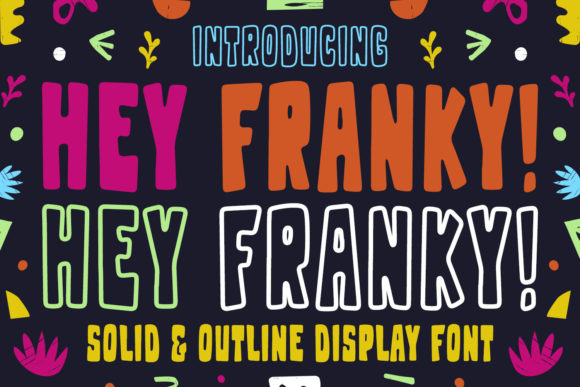
Introducing Hey Franky Font, a striking display font that adds a touch of boldness and playfulness to any creative pursuit. Designed by Kotak Kuning Studio, this font family is a visual delight, perfect for gamers seeking a font that's as vibrant as their virtual worlds.
Immerse yourself in the world of Hey Franky Font, where each letter is an adventure waiting to happen. Crafted with precision, this font boasts bold, outlined letters that grab attention and make a statement. Its unique design brings a sense of playfulness and creativity to any project, whether it's game user interfaces, posters, or social media graphics.
Unleash your imagination and create gaming experiences that captivate and engage your audience. Hey Franky Font is the perfect companion for game developers looking to add a touch of personality and fun to their creations. Its bold, legible letters ensure readability, even in the most intense gaming moments, while its playful style adds a touch of charm that players will love.
Beyond the world of gaming, Hey Franky Font shines in various other creative endeavors. Whether you're designing posters for events, creating eye-catching social media graphics, or crafting unique branding materials, this font delivers versatility and impact. Dare to be different and let your creativity soar with Hey Franky Font.